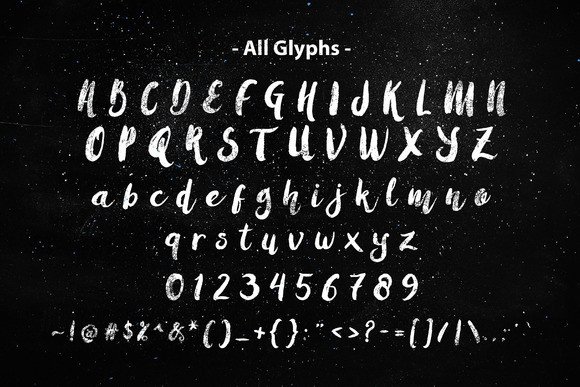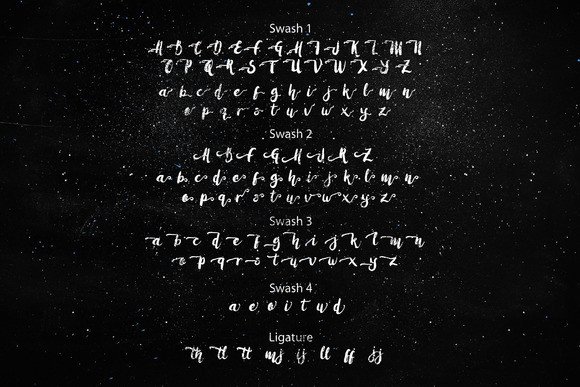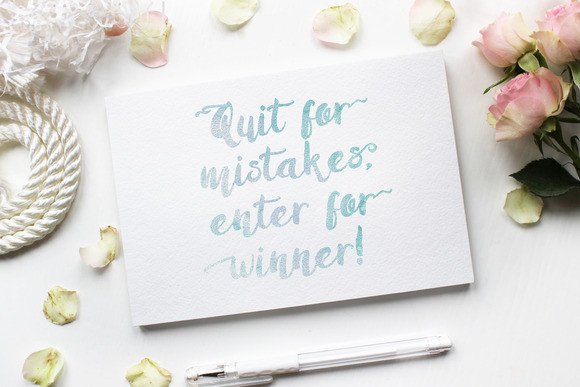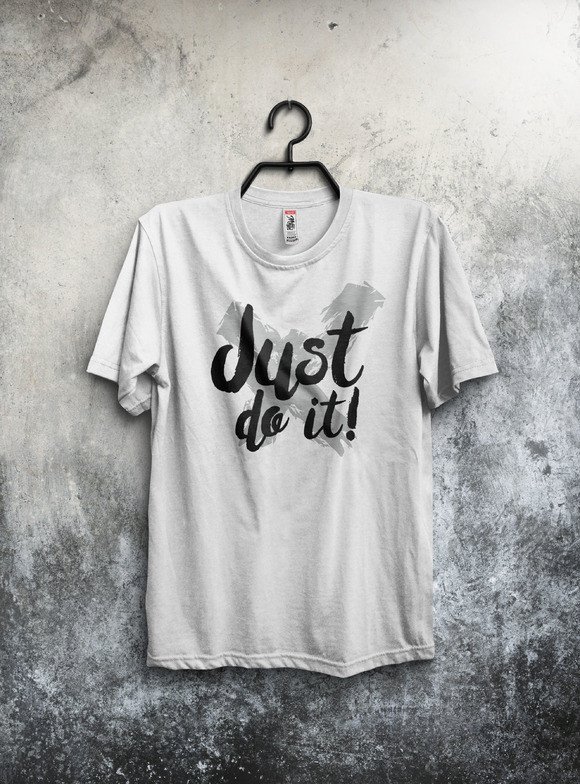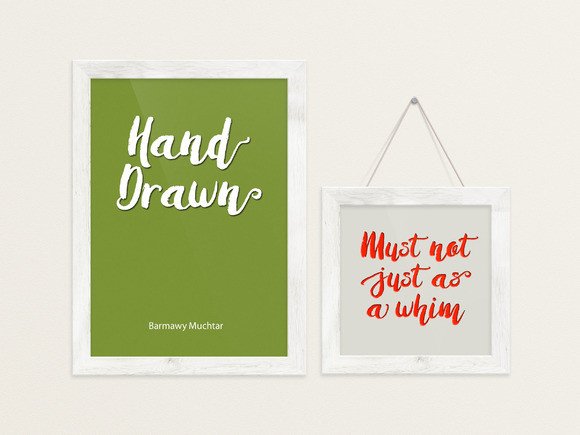
Amulhed Brush Font
About Amulhed Brush Font
Amulhead is not just another handwritten font; it’s a masterpiece crafted with meticulous attention to detail. With its captivating beauty and effortless charm, Amulhead adds a touch of elegance to any design project. What sets it apart is its extensive repertoire of 128 extra ligatures and stylistic alternates, offering endless possibilities for creating stunning designs with unique combinations.
Each stroke of Amulhead exudes warmth and authenticity, capturing the essence of handwritten artistry. Its fluid curves and gentle flourishes create a sense of whimsy and sophistication, making it ideal for a wide range of applications, from branding to invitations, packaging to social media graphics.
The abundance of ligatures and alternates in Amulhead opens up a world of creative opportunities. Whether you’re crafting a logo, designing a poster, or composing a heartfelt message, you’ll find the perfect combination to express your vision. These additional characters add depth and character to your designs, elevating them from ordinary to extraordinary.
Furthermore, Amulhead’s versatility ensures that it remains legible and impactful across different mediums and sizes. Whether it’s displayed on a website, printed on paper, or projected onto a screen, its inherent beauty shines through, captivating the audience and leaving a lasting impression.
From a practical standpoint, Amulhead’s extensive ligatures and alternates also contribute to improved readability and user experience. By carefully selecting the most appropriate characters for each context, you can ensure that your message resonates clearly with your audience, enhancing engagement and communication.
In summary, Amulhead is more than just a font; it’s a versatile tool that empowers designers to unleash their creativity. With its beautiful handwritten style and wealth of ligatures and alternates, Amulhead enables you to craft captivating designs that stand out from the crowd. Embrace the endless possibilities of Amulhead and let your imagination run wild.